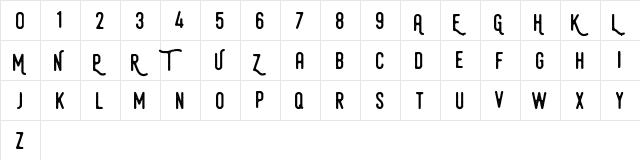
Hamurz Free Version Regular
Design Context for Hamurz Free Version Typeface
Hamurz Free Version takes a measured approach to typography — its balanced proportions and neutral character make it a reliable workhorse for both digital and print work.